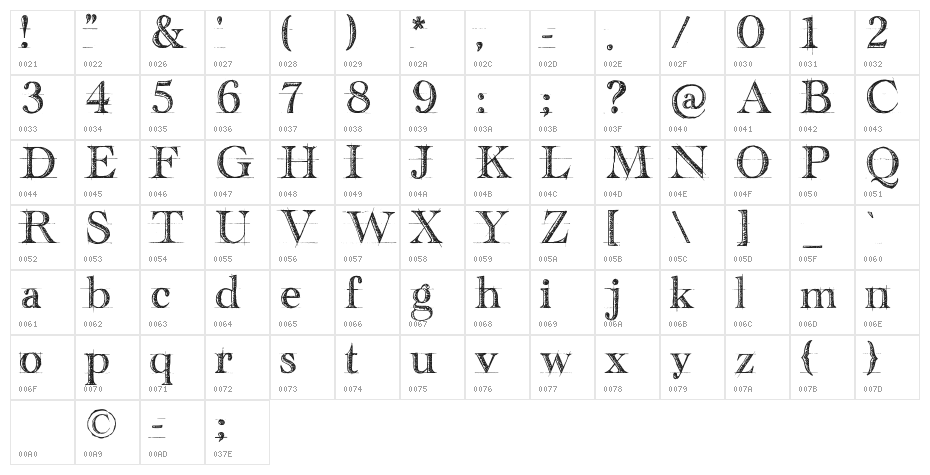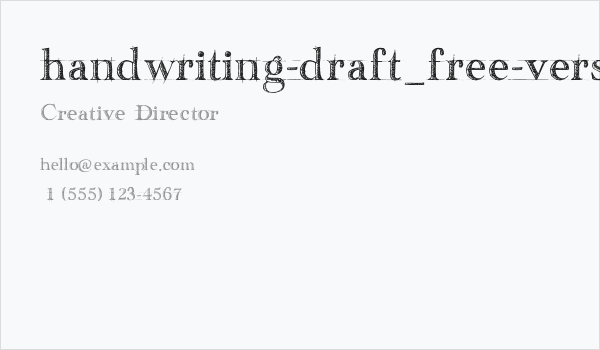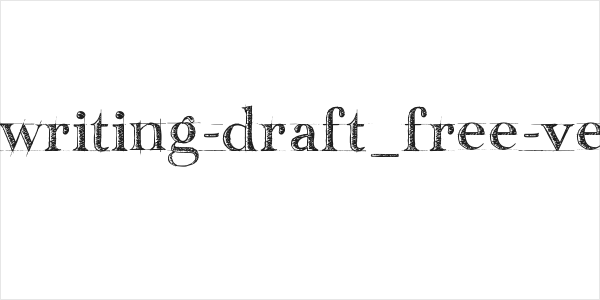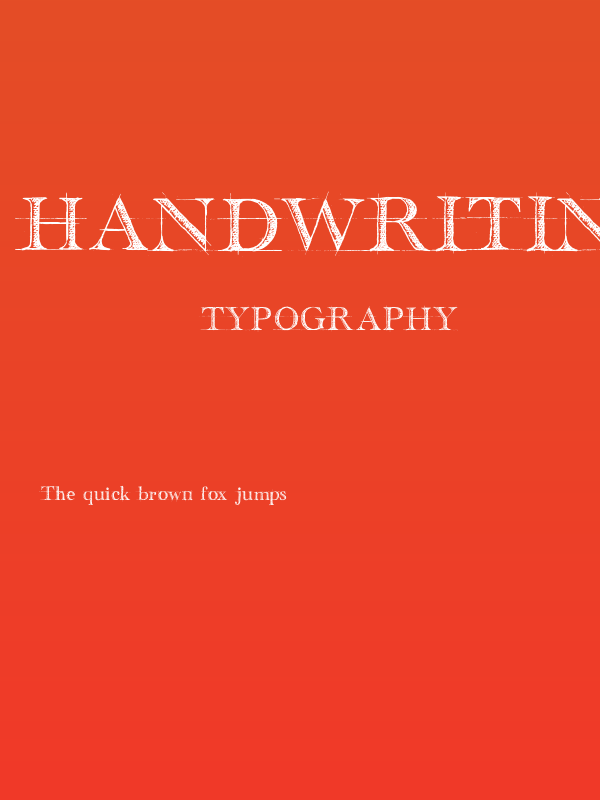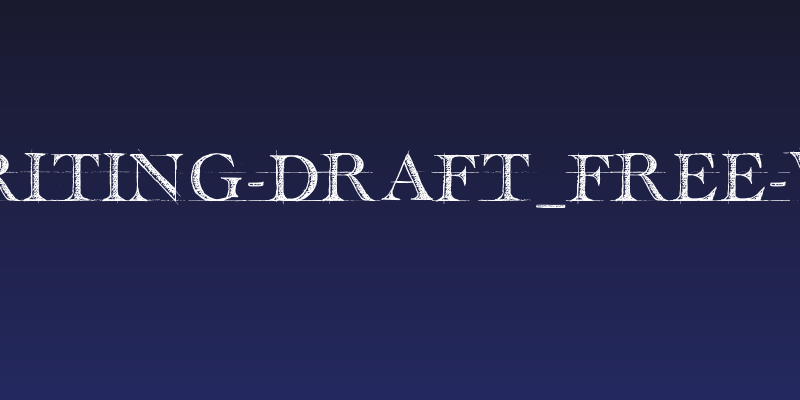
handwriting-draft_free-version Font
handwriting-draft_free-version Description
This font features a unique hand-drawn style that mimics the look of a draft or sketch. Each character is outlined with a rough, textured line that gives it a distinctive, artistic appearance. The uppercase and lowercase letters maintain a consistent height and width, creating a balanced look. The numerals and special characters follow the same design, ensuring uniformity across all glyphs. The font's irregular strokes and sketch-like quality make it ideal for creative projects that require a personal touch.
Use CaseHeadlines, Logos, Artistic projects
Proposed ProjectsIdeal for artistic projects, invitations, posters, and branding that require a personal, handcrafted feel.